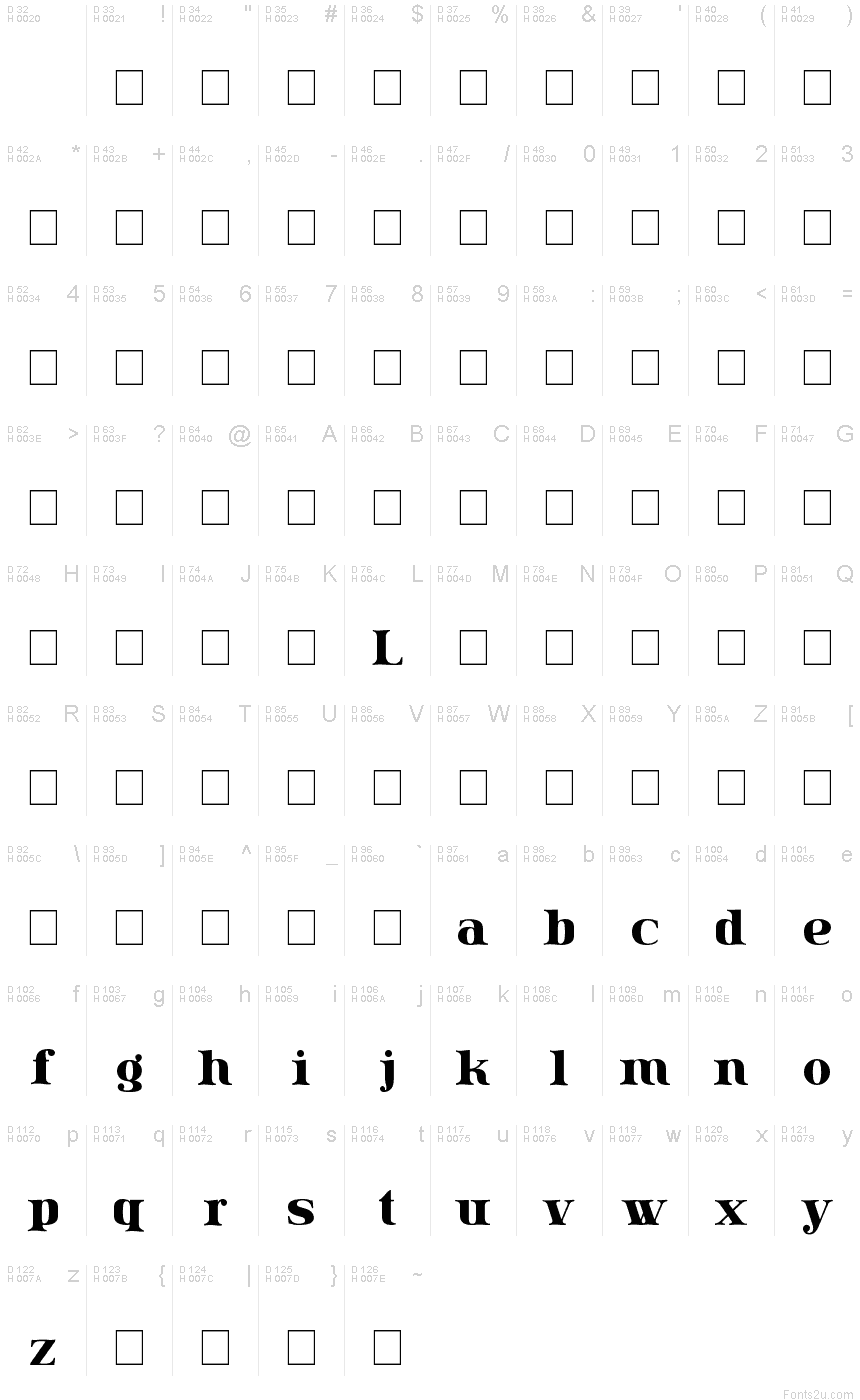
Lissain, created by Typesgal in 2013, is a free old-school serif font with dramatic thick-thin contrast. Broad, dark curves meet very fine joins, giving the lowercase a crisp, theatrical silhouette. Rounded forms keep the dense weight from feeling severe.
A fashion magazine cover is its most convincing setting, especially when the lettering can echo glossy editorial photography. The same poised drama suits fragrance packaging, music posters, and boutique signage, each of which benefits from its mix of softness and sharp detail. In branding, those generous curves and needle-fine transitions can turn a name into an elegant, slightly eccentric product mark.